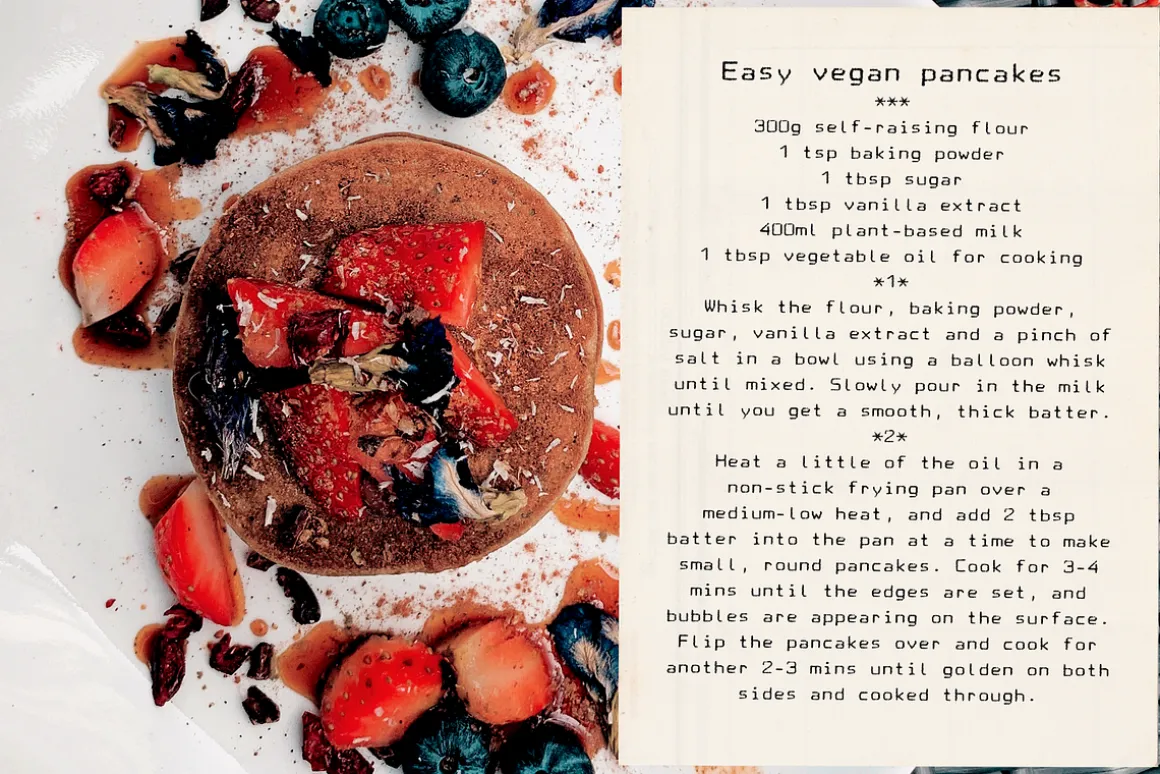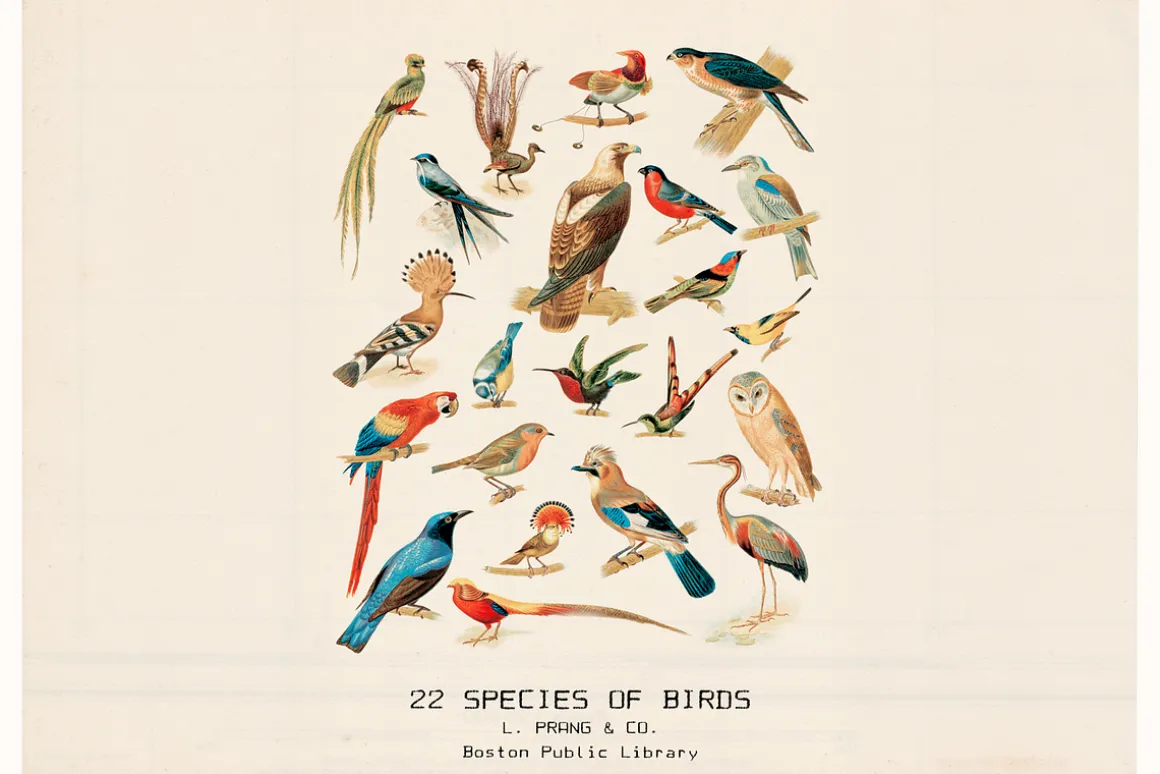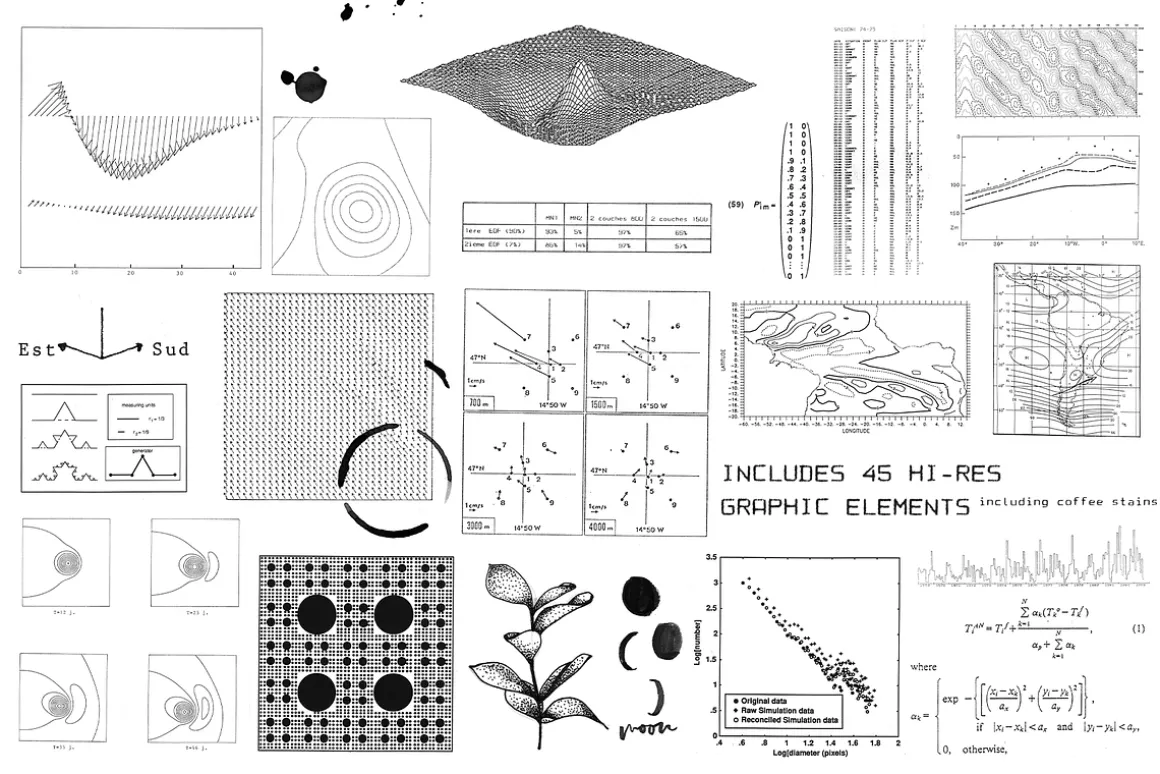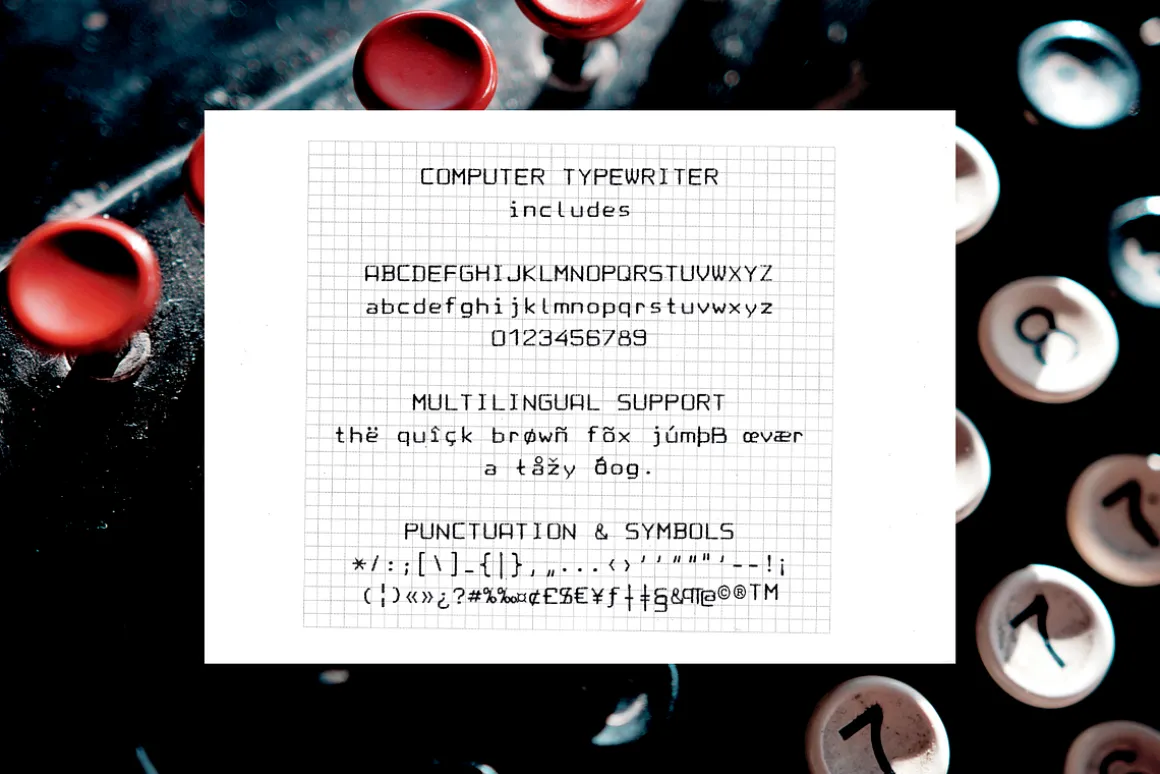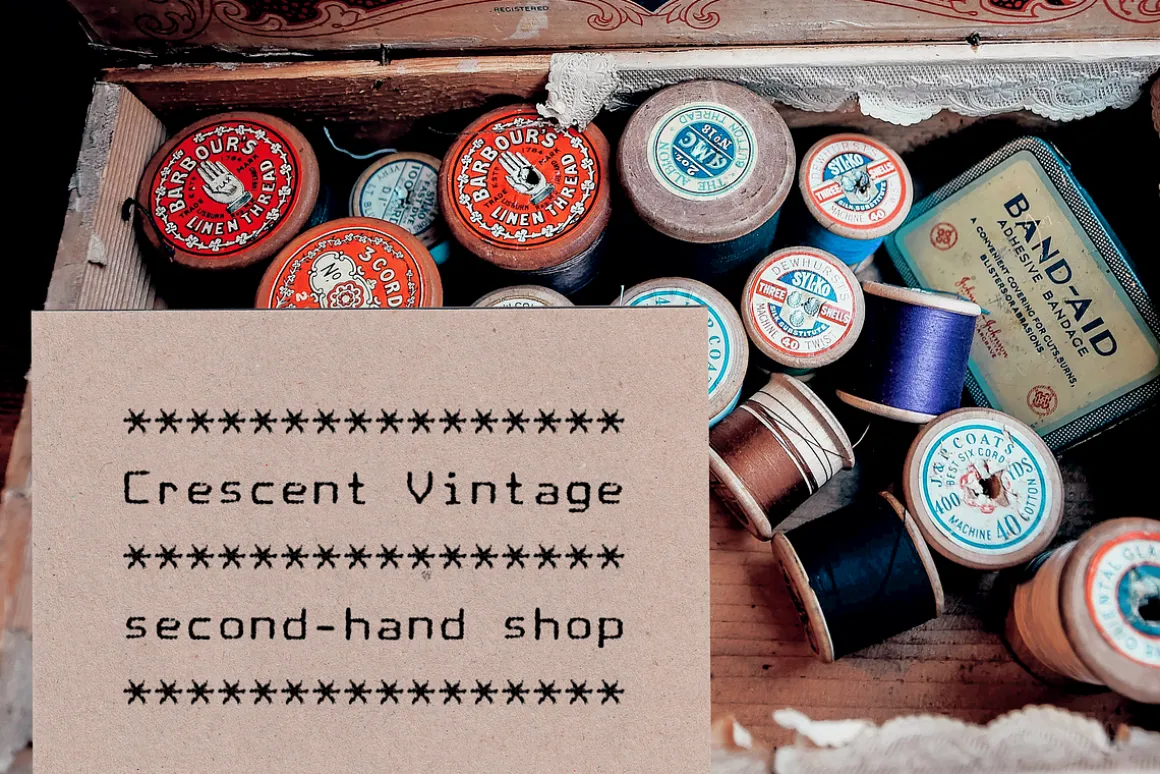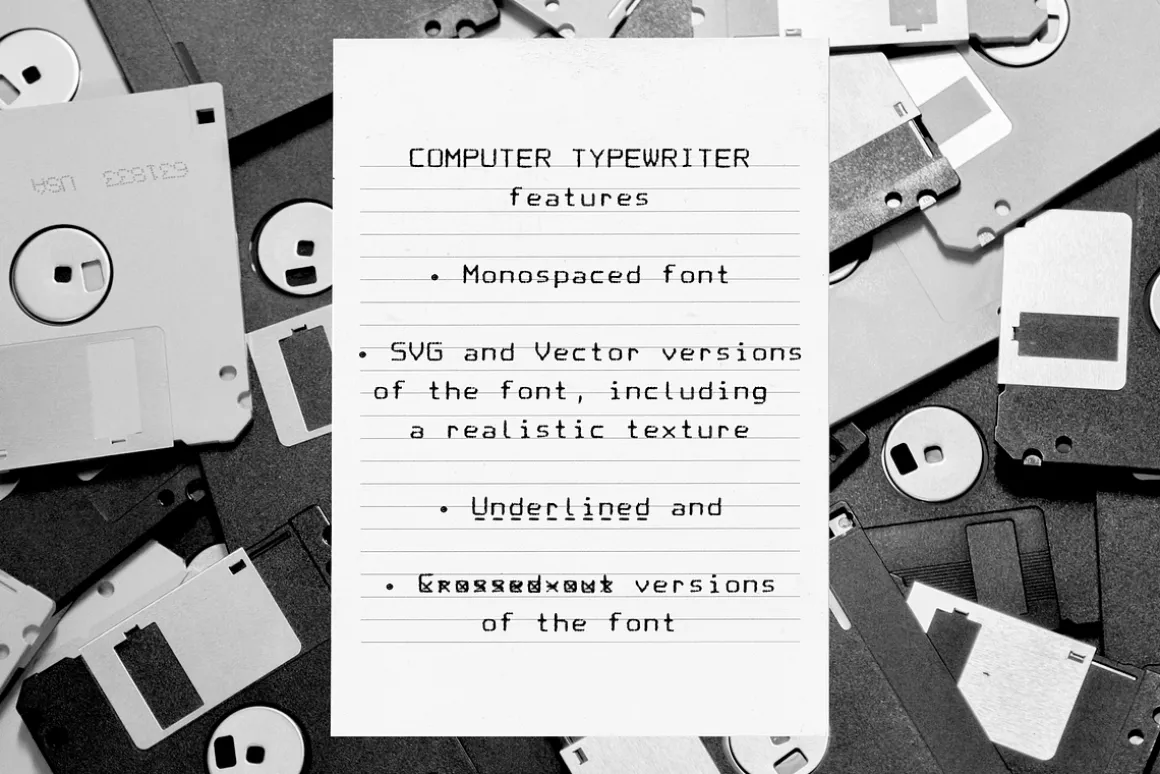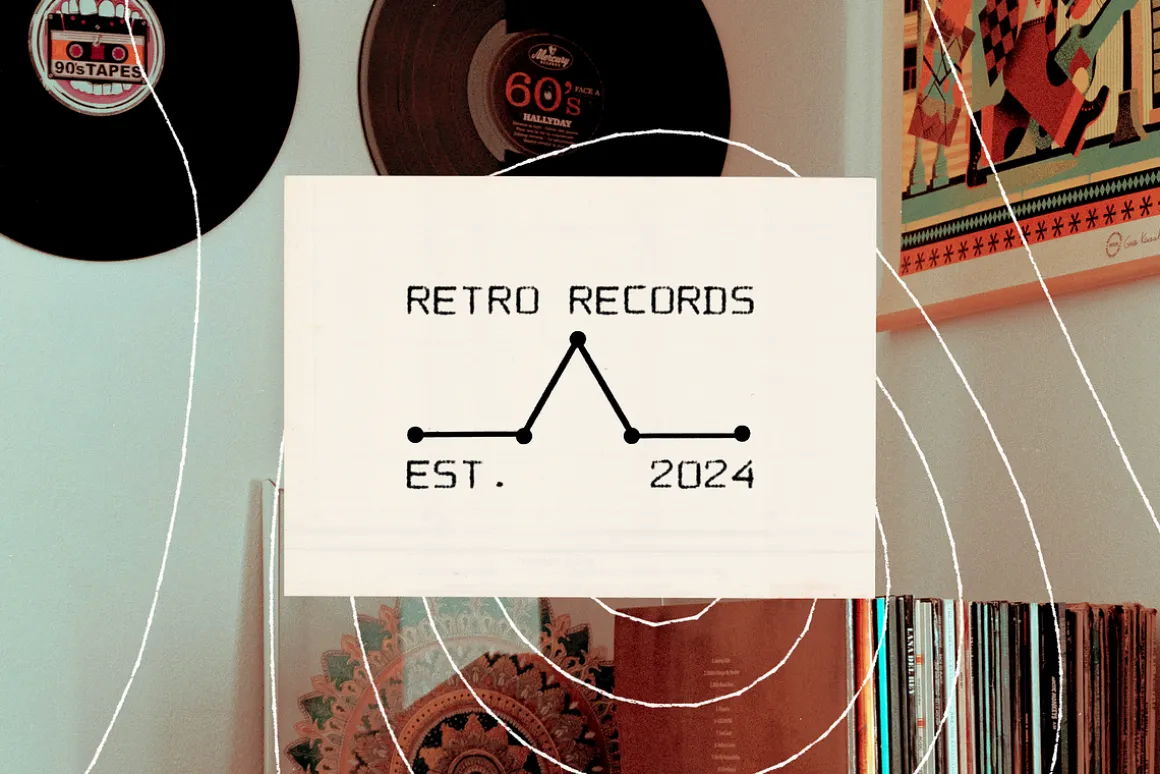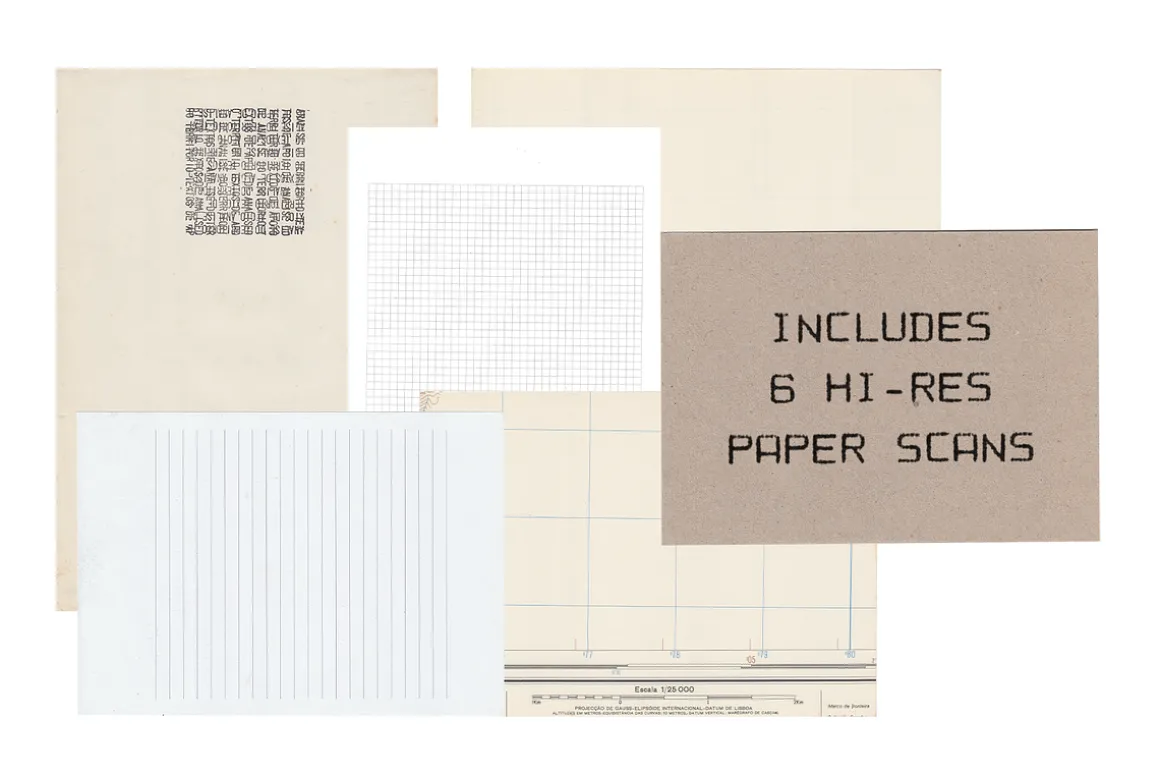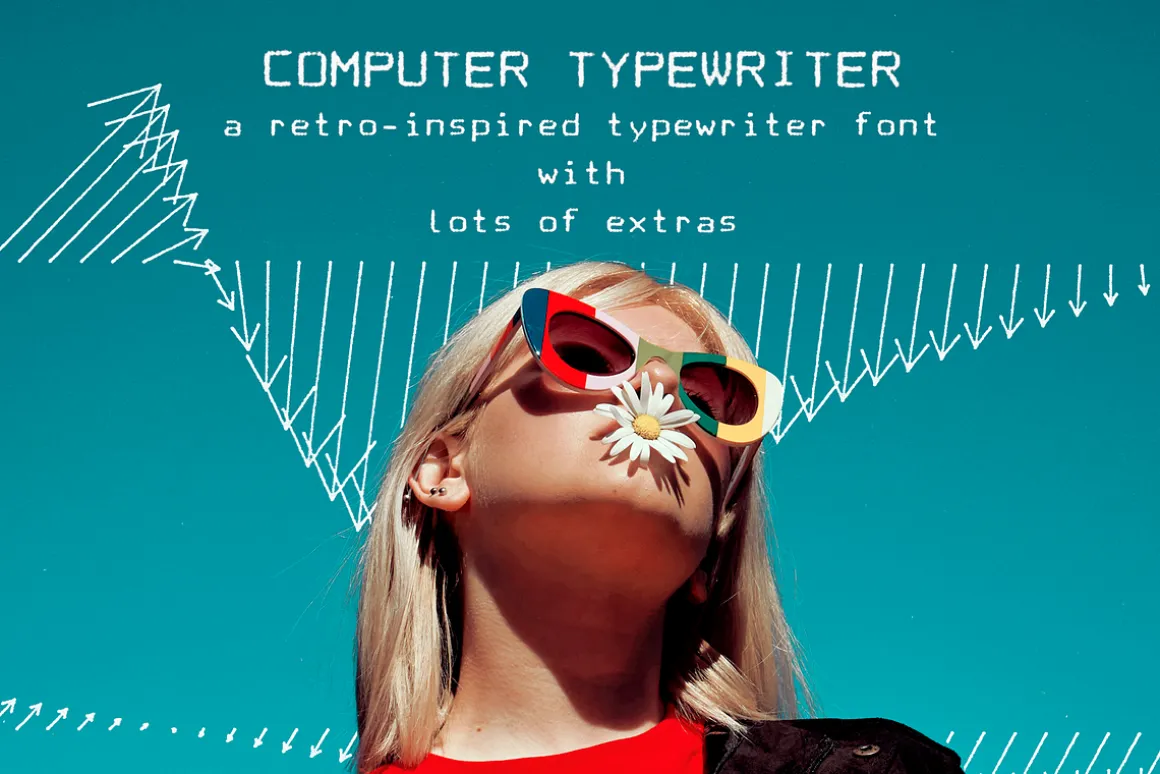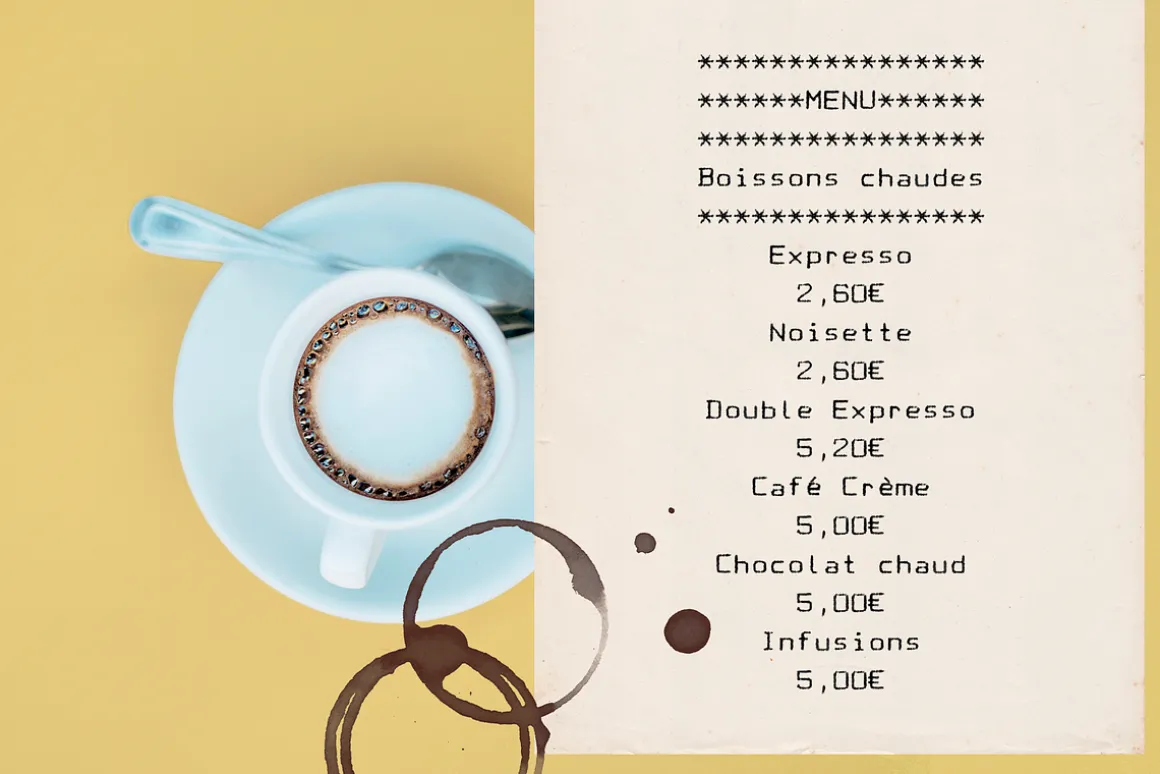
Elevate your design projects with the Computer Typewriter Font. This unique typeface combines the nostalgic charm of classic typewriters with a slight pixelated flair of early computer text, making it an ideal choice for retro-themed designs, digital art, and creative projects that crave an authentic vintage touch.
Key Features:
- Authentic Textured Look: Each character is designed with a realistic texture, replicating the imperfect ink impressions of traditional typewriters.
- Pixelated Aesthetic: Embrace the early computer era with pixel-perfect precision, adding a nostalgic digital twist to your designs.
- Versatile Usage: Perfect for posters, book covers, website headers, branding materials, and more, this font stands out in both print and digital formats.
- Comprehensive Character Set: Includes uppercase, lowercase, numbers, punctuation, and special characters to meet all your design needs.
The Computer Typewriter Font is not just a typeface; it’s a journey back in time. Ideal for designers, writers, and digital artists, this font adds a layer of authenticity and creativity to your work. Whether you’re aiming for a retro look or a quirky modern design, this font offers the versatility and character you need.